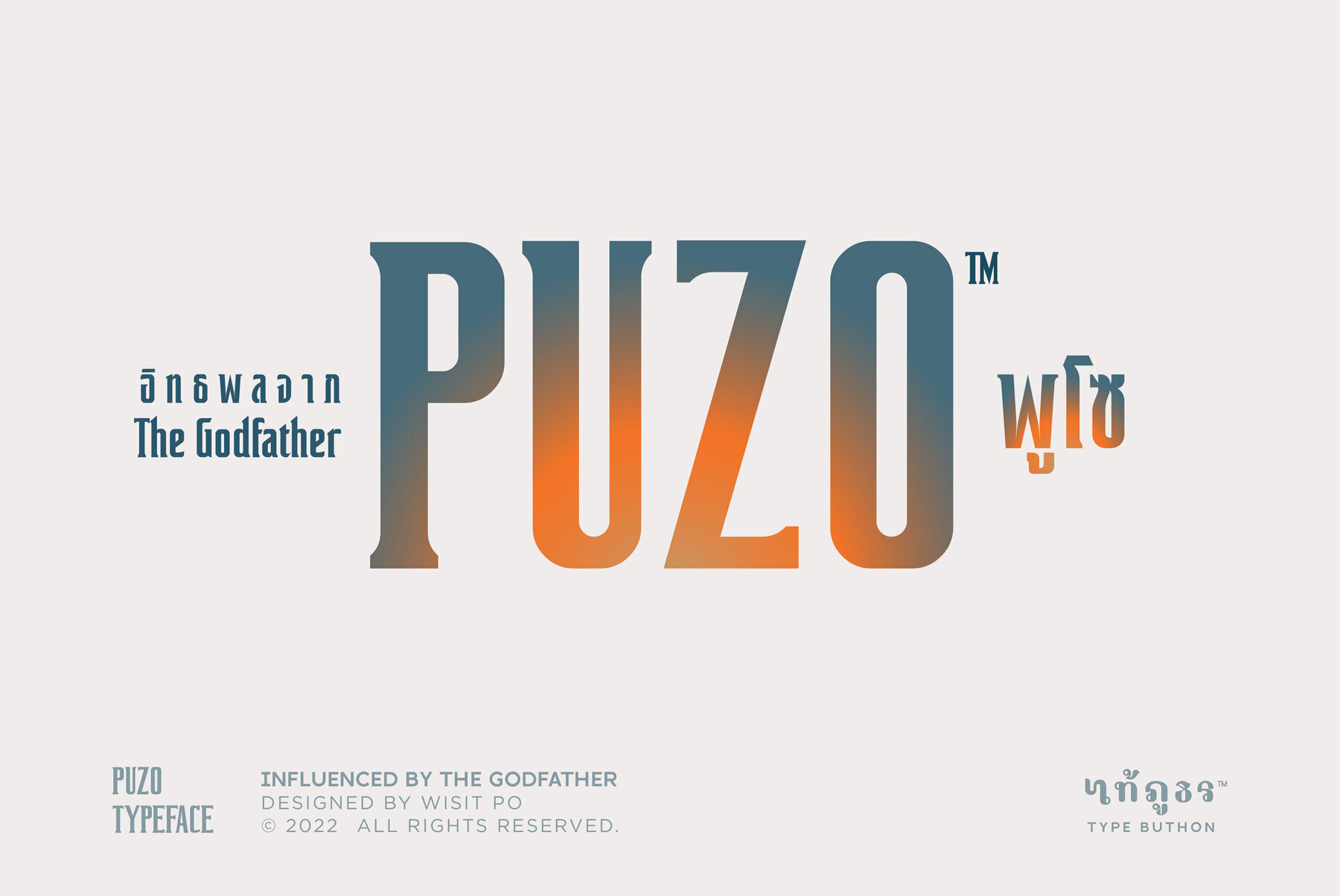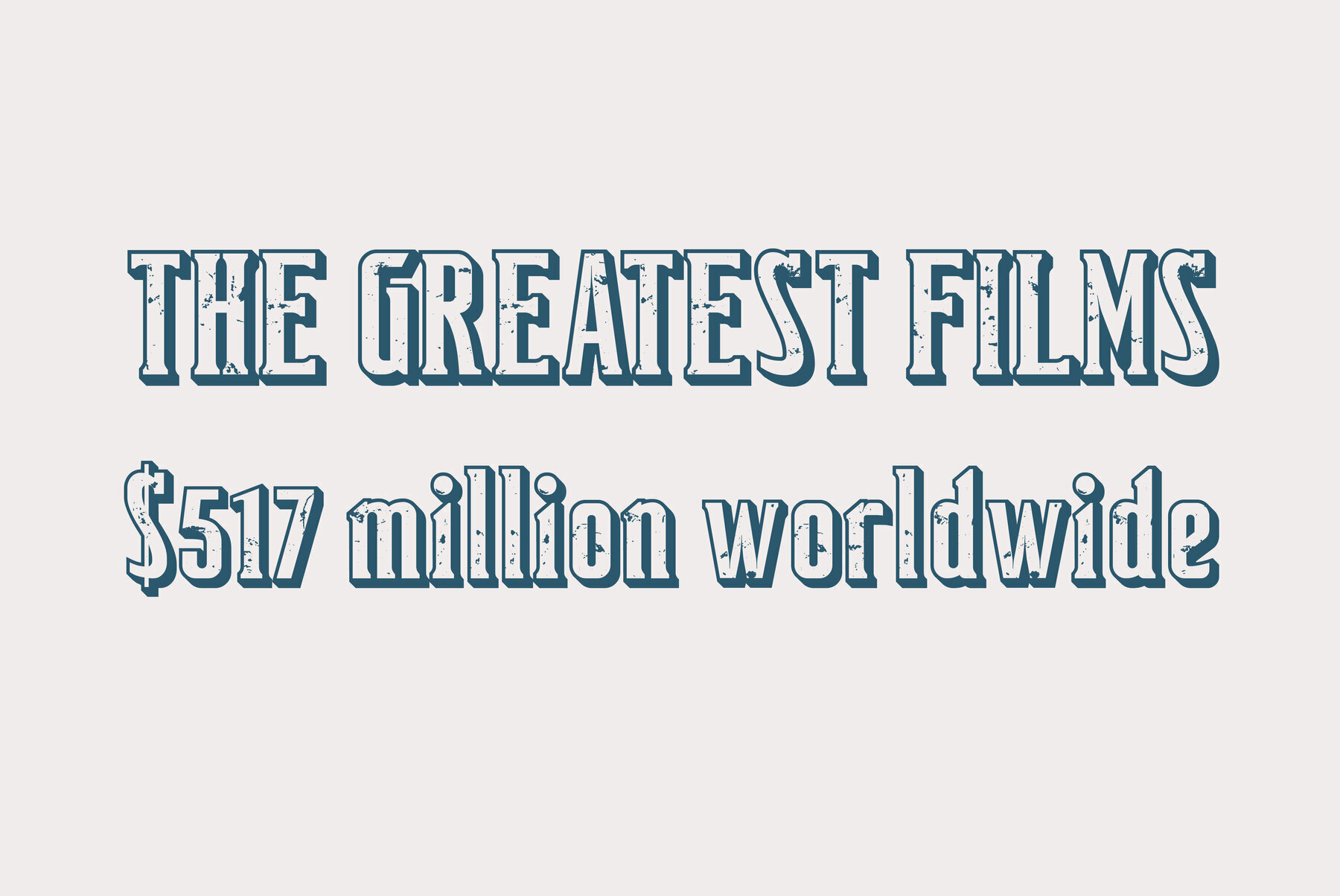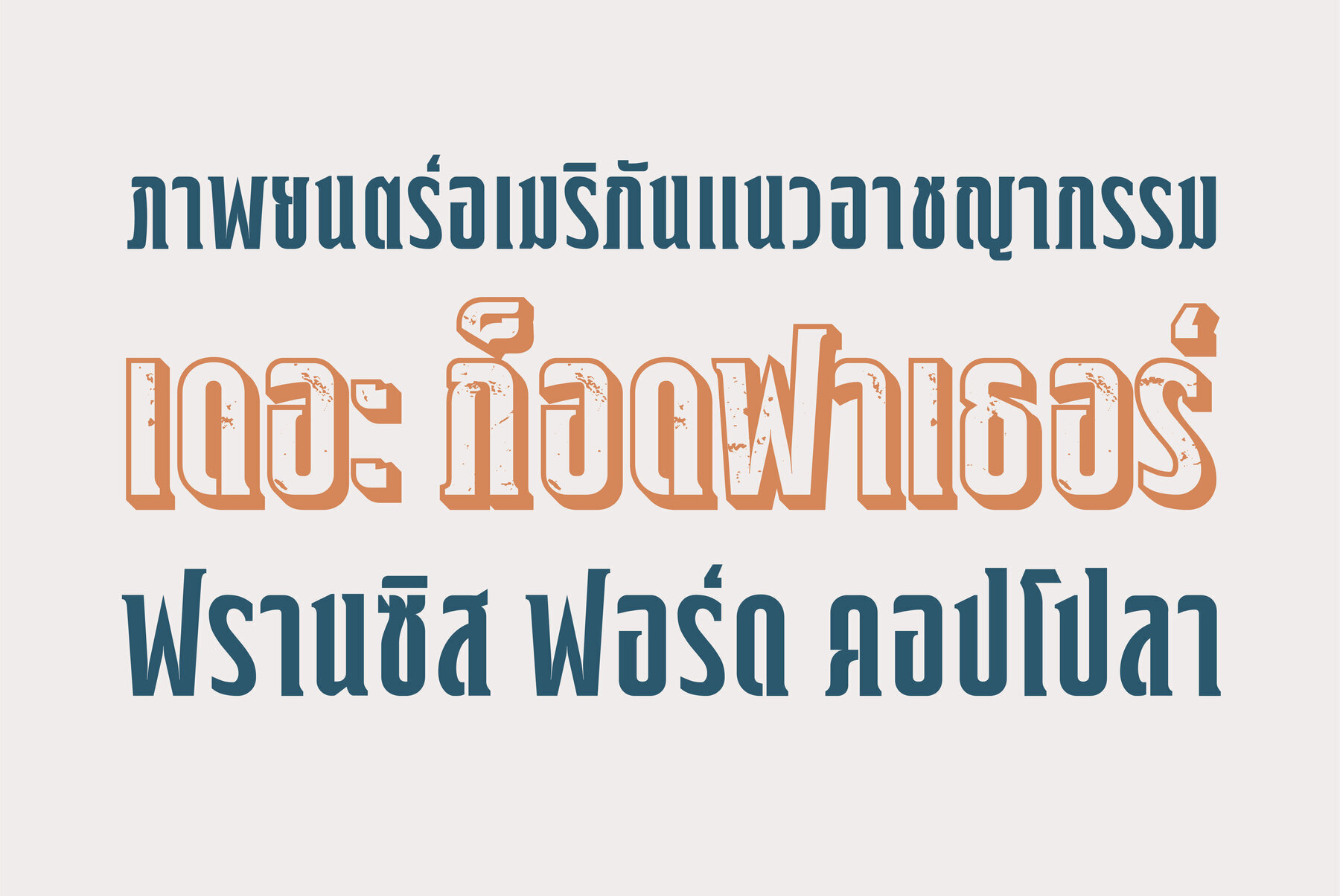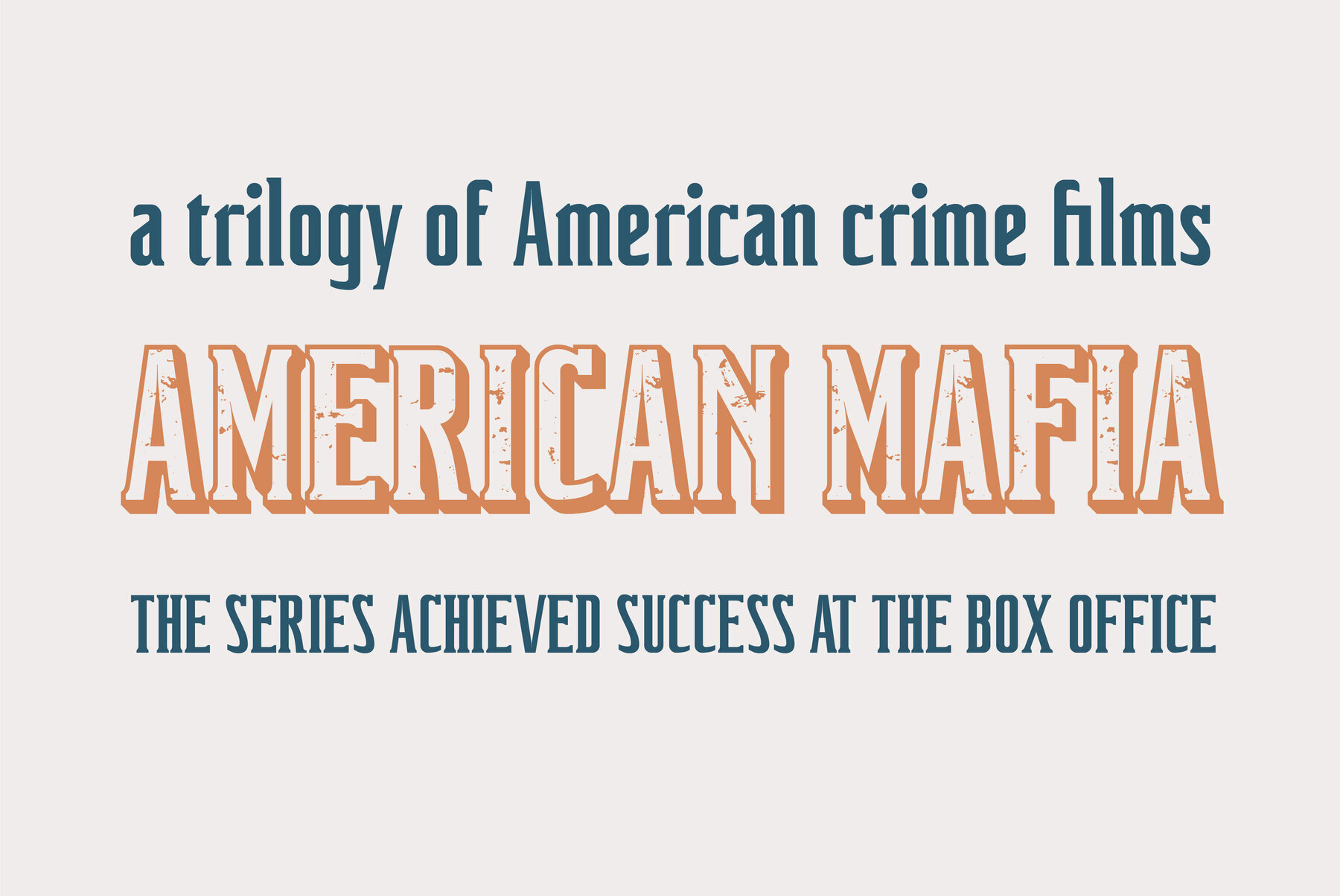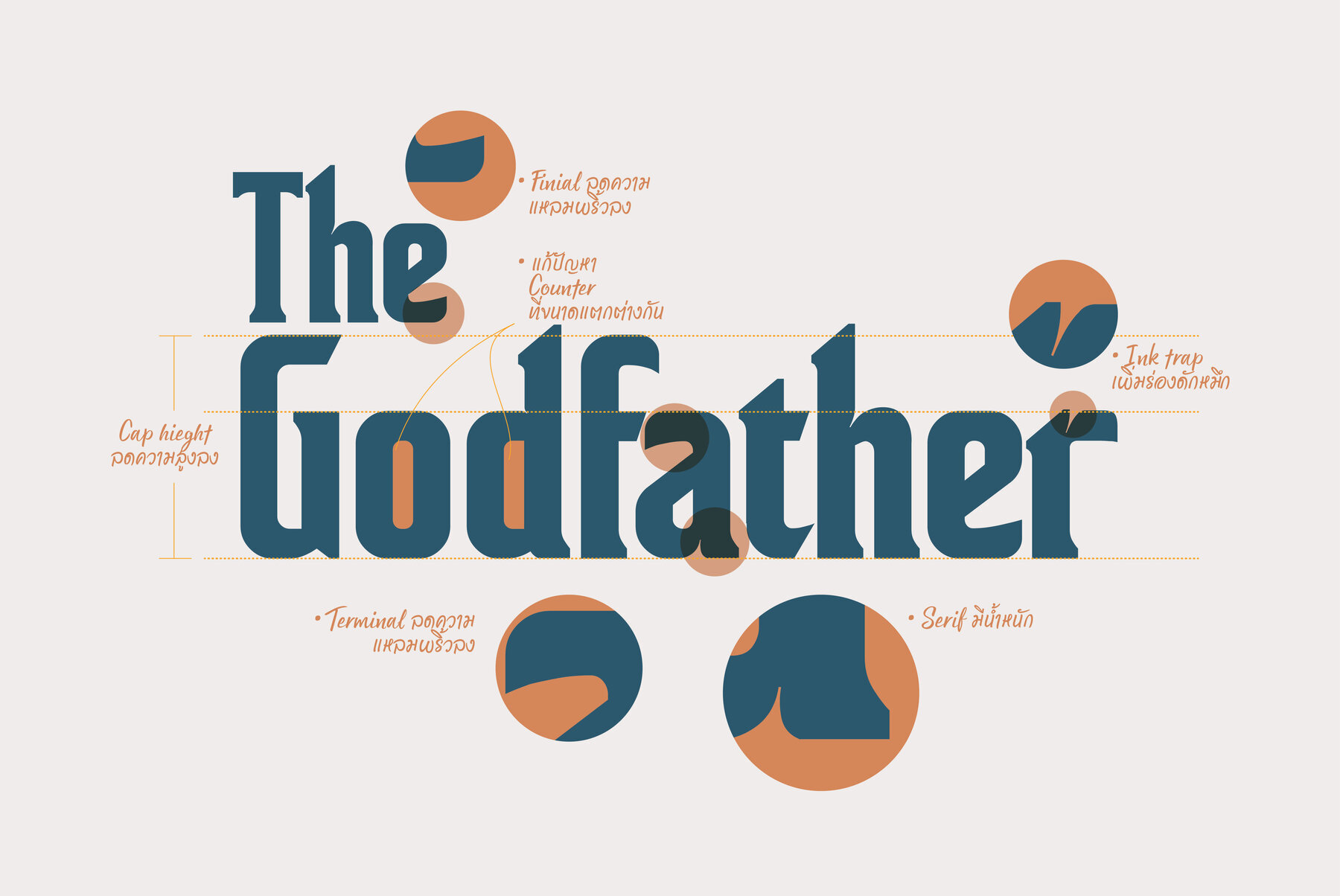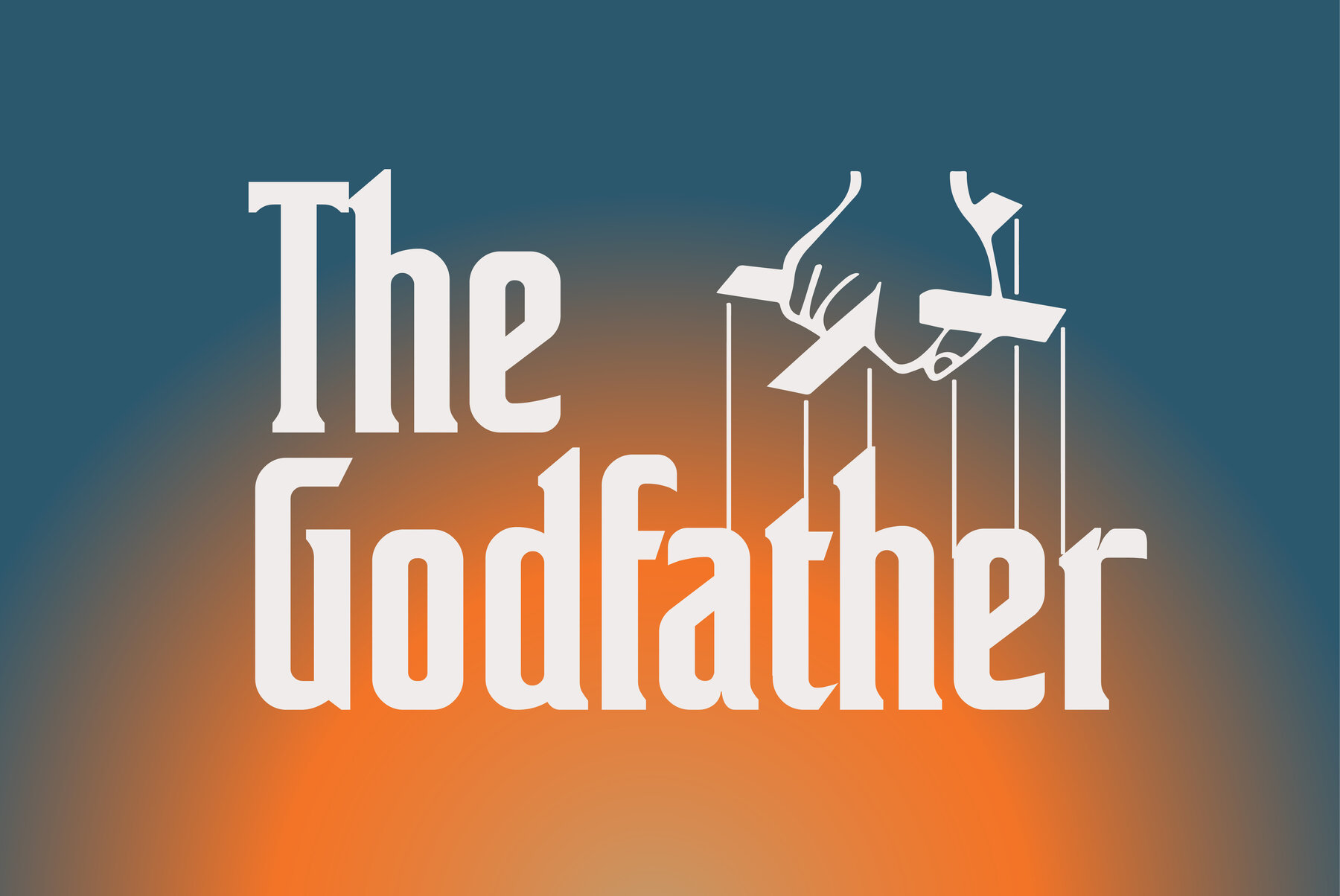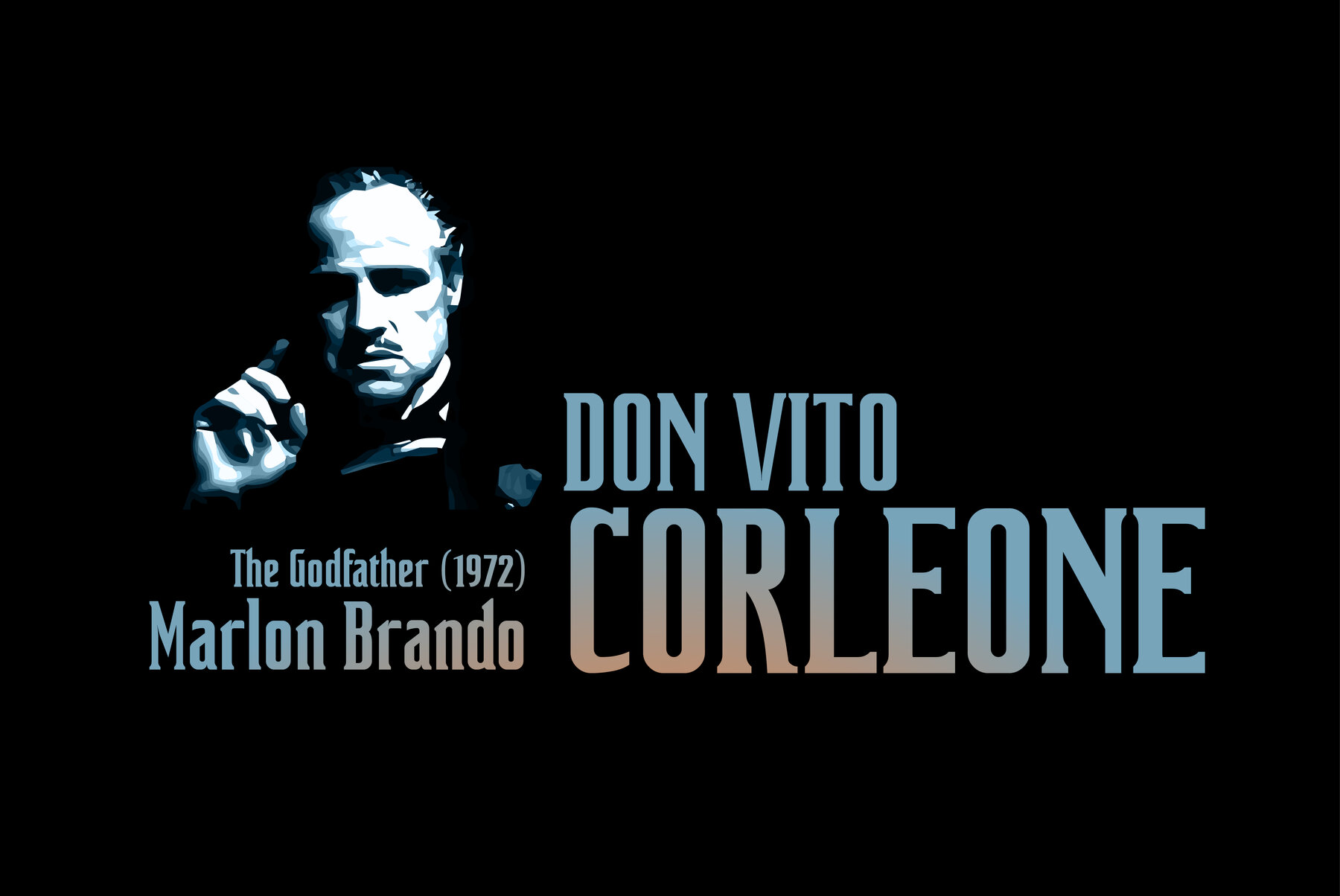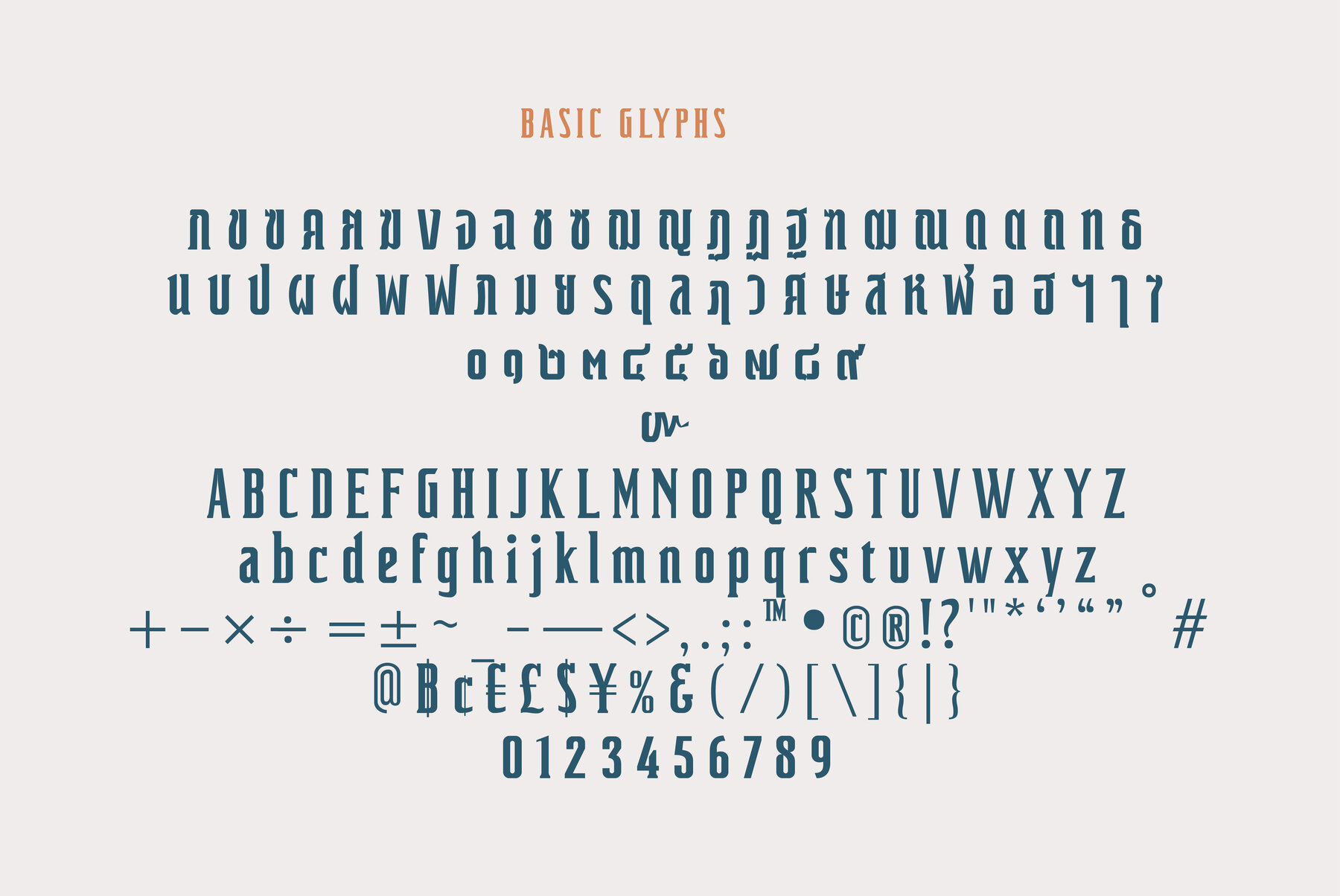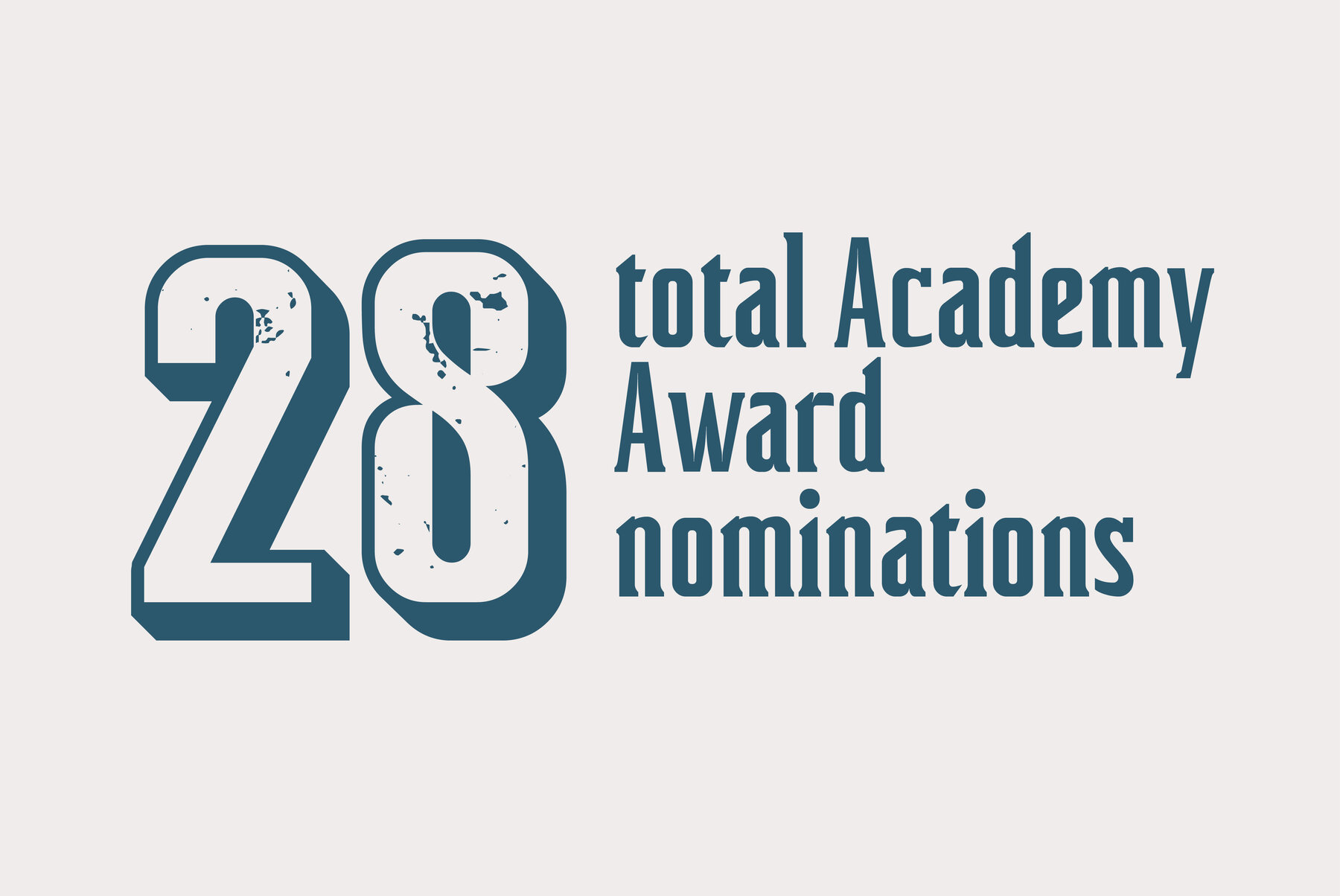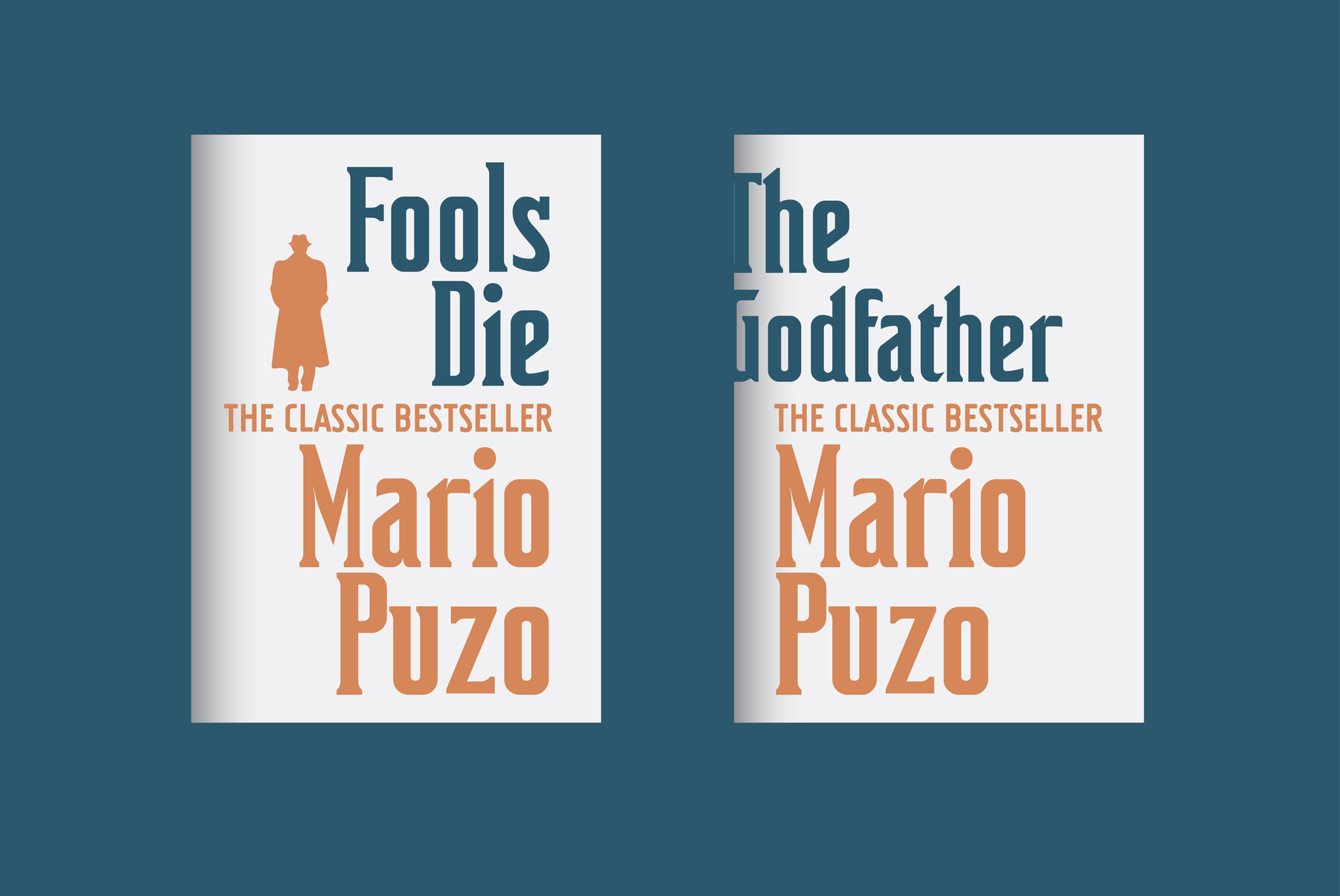
PUZO Font
This font was inspired by Movie title: The Godfather It's an old-fashioned, retro styled font, suitable for posters, headlines. This set of fonts includes regular and 3D.